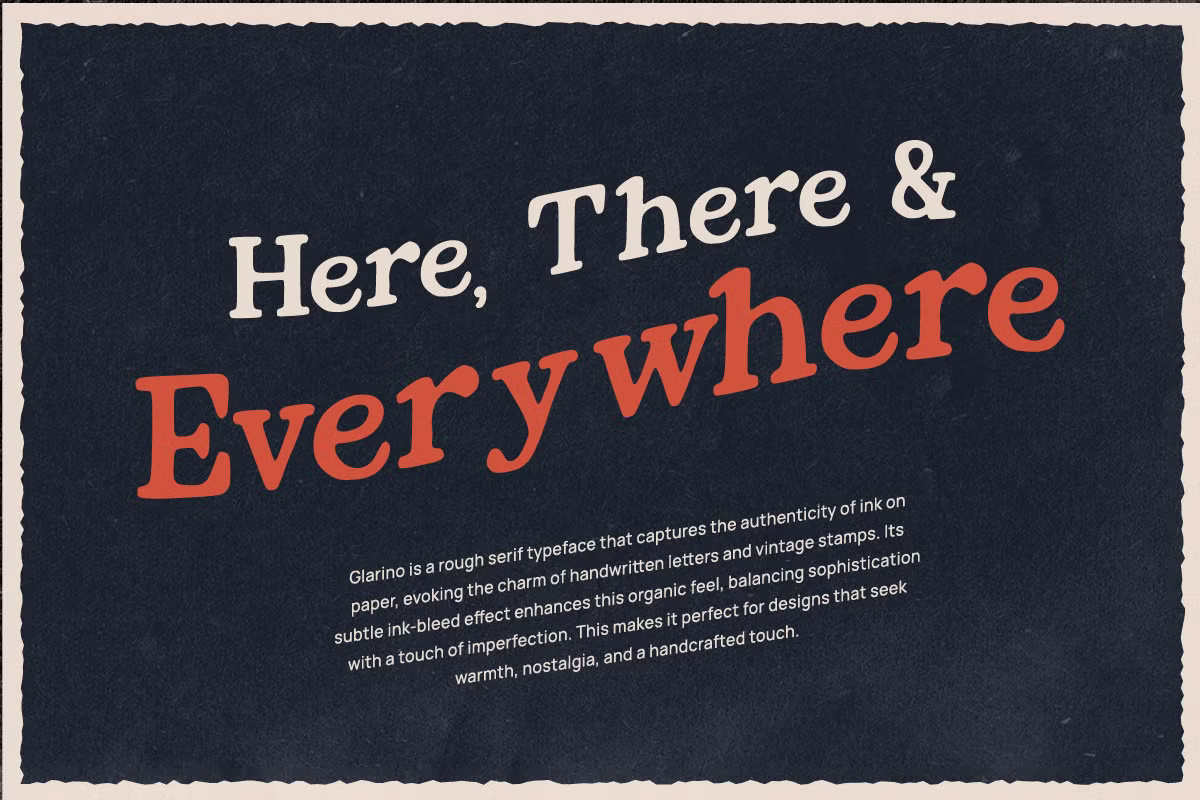
Glarino Font
Glarino is a refined serif typeface with a hint of retro charm, featuring elegant curves, symmetrical shapes, and strong edges. Designed for timeless and classic projects, Glarino captures the nostalgic essence of 1920s and 1930s packaging, making it an ideal choice for branding, packaging, editorial work, and headlines.
With its subtle contrast and expertly crafted stamping effect, Glarino seamlessly blends modern design with vintage appeal. It offers a fresh take on classic aesthetics, bringing a sophisticated yet nostalgic touch to any project.